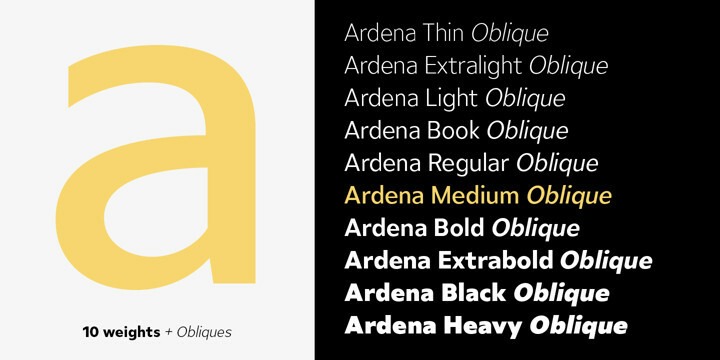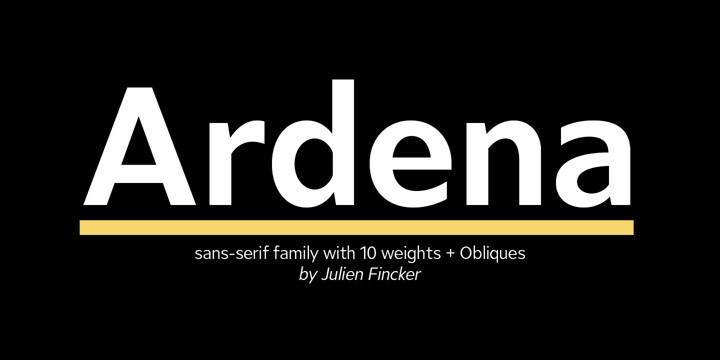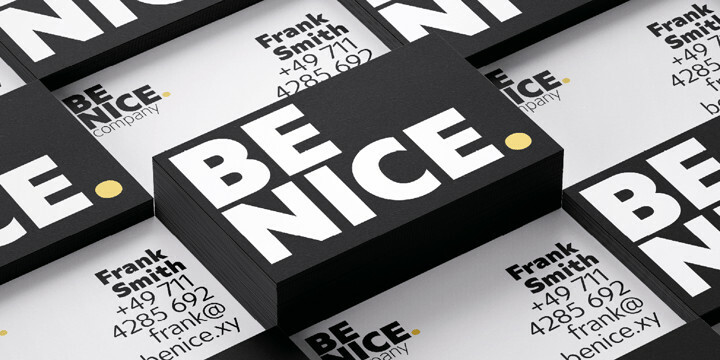
Ardena Font Family
Ardena Font FamilyArdena is a modern sans-serif typeface family. While neutral and clear at first glance, it can be characterized as both pleasant and confident due to its open, rounded forms and vertical terminals. It can be used in both a restrained and expressive way. The thinner and thicker weights are particularly suitable for strong headlines, while the middle weights can be used for typographic challenges and body text. Completed with an extensive character collection, it becomes a real workhorse. A versatile allrounder that is up to all challenges – for Corporate Identity, Editorial, Branding, Orientation and Guidance systems and much more.
Features:
The Ardena family has a total of 20 styles, from thin to heavy with matching italics. With over 1064 characters, it covers over 200 Latin-based languages. It has an extended set of currency symbols and a whole range of Open Type Features. There are alternative characters as stylistic sets, small caps, automatic fractions – just to name a few.
Arrows and numbers:
In particular, the extensive range of arrows and numbers should be highlighted, which are perfectly suited for use in orientation and guidance systems. Thanks to Open Type Features and an easy system, the various designs of arrows and numbers can also be simply “written” without first having to select them in a glyph palette.
The principle is easily explained: If a number is placed in round or square brackets, it will automatically be displayed in an outlined circle or square. If you add a period to the number, it is displayed in a full circle or square. The same principle also applies to the arrows. The arrows themselves are combinations of greater/less symbols with the various slashes or hyphens.